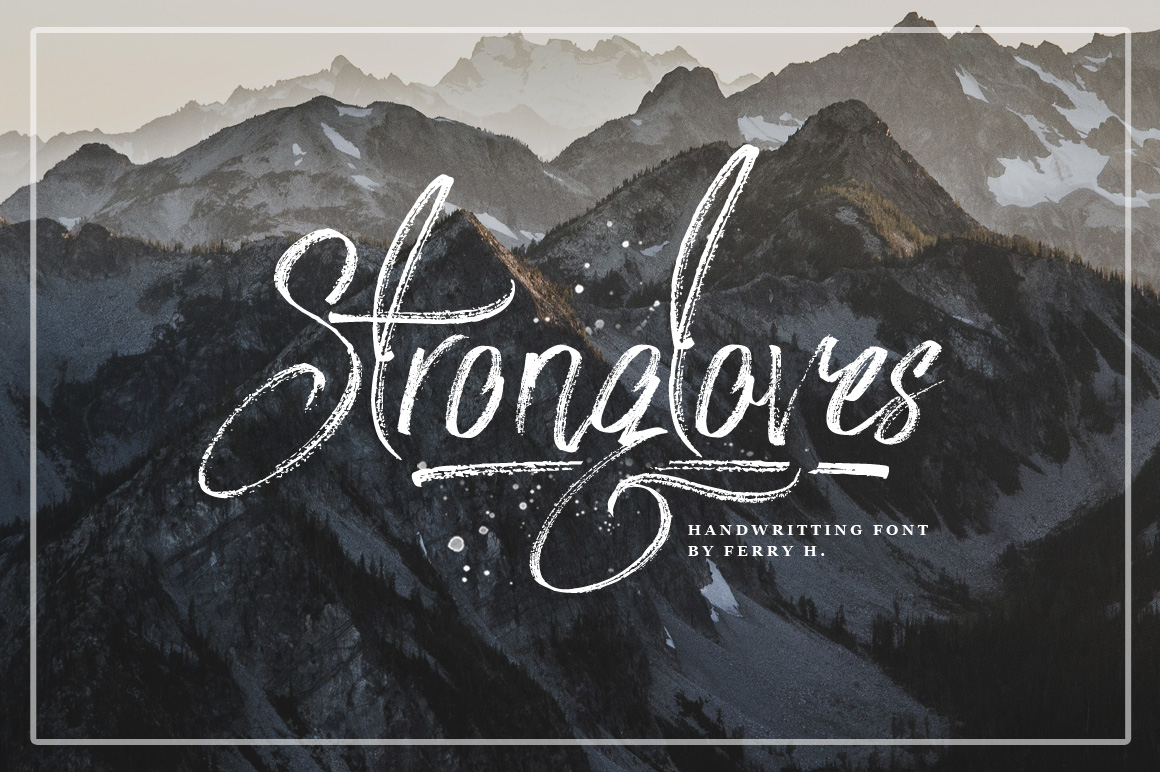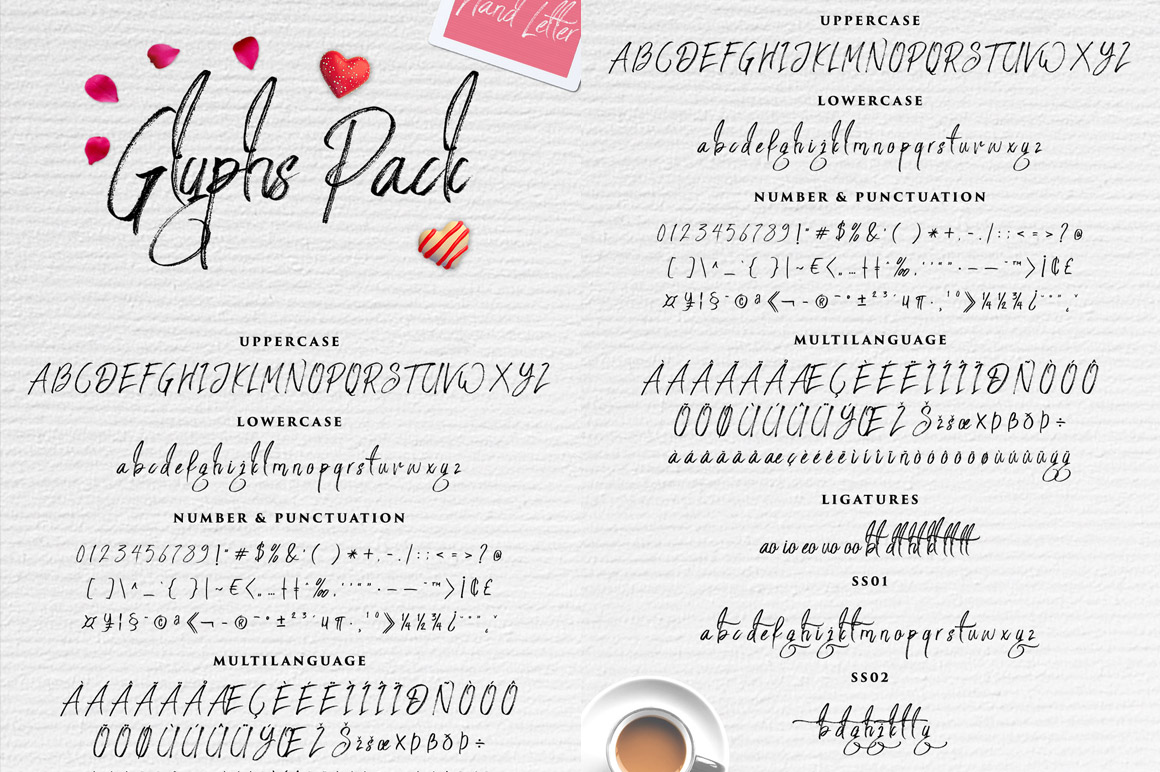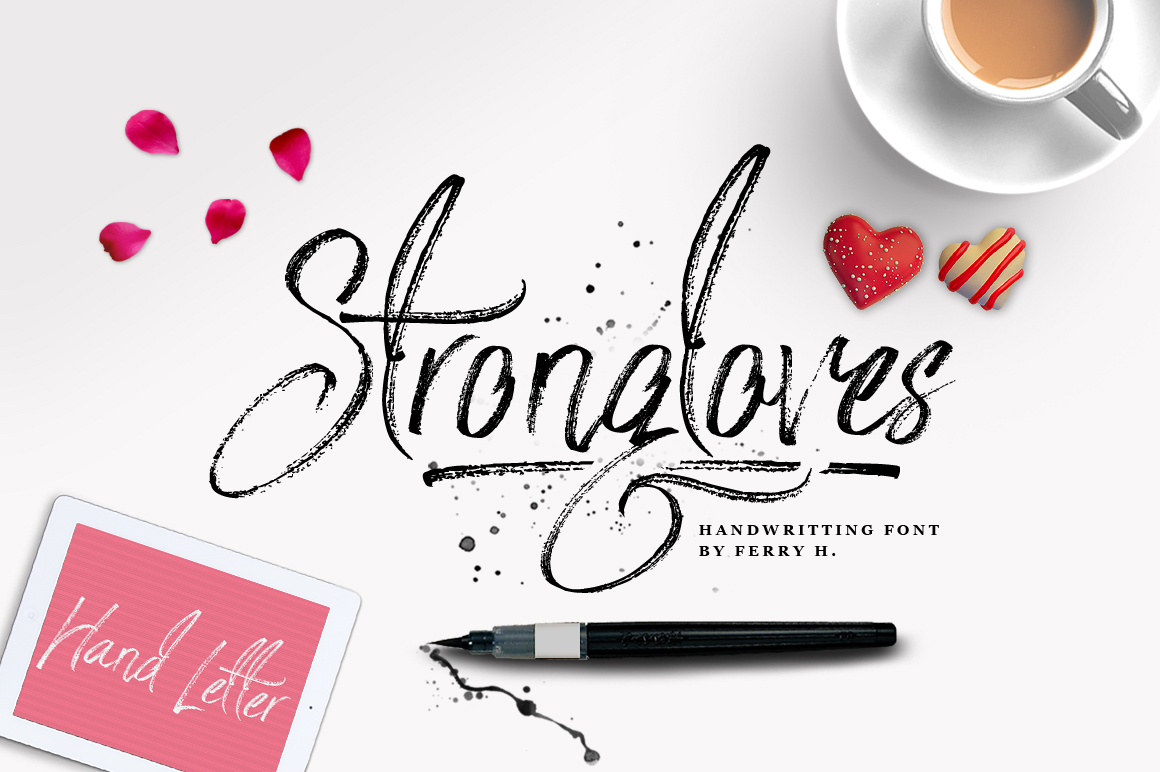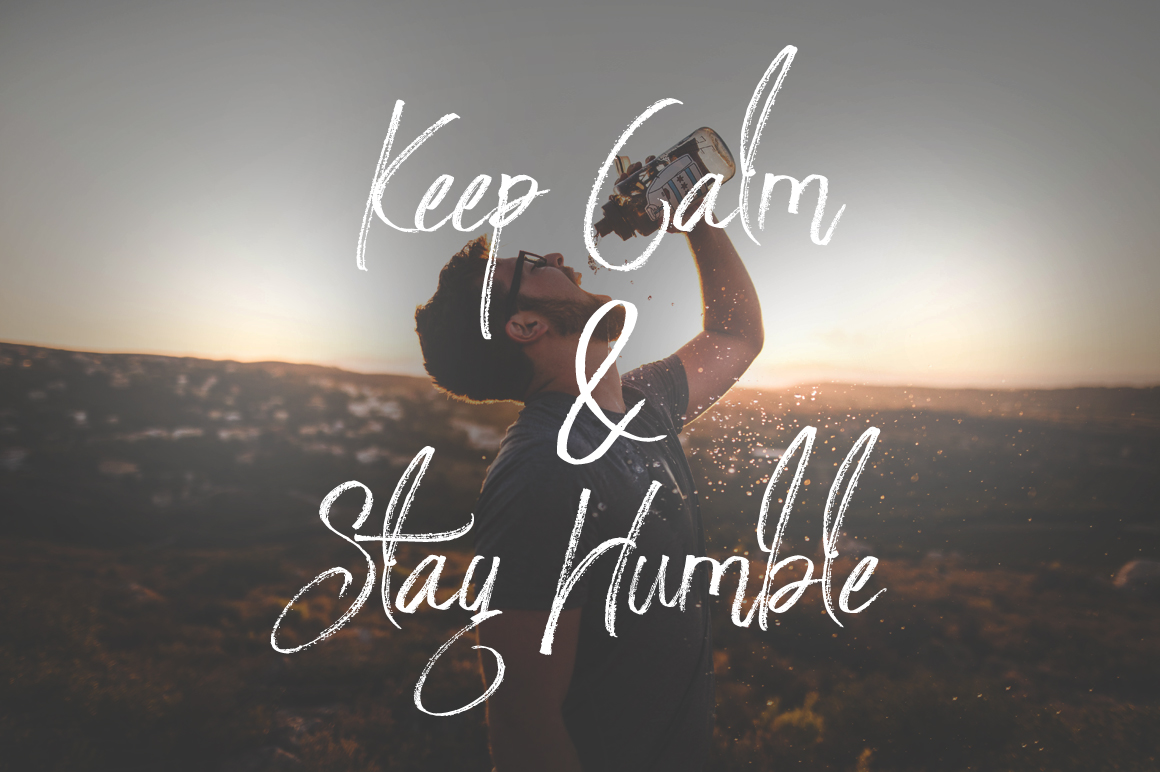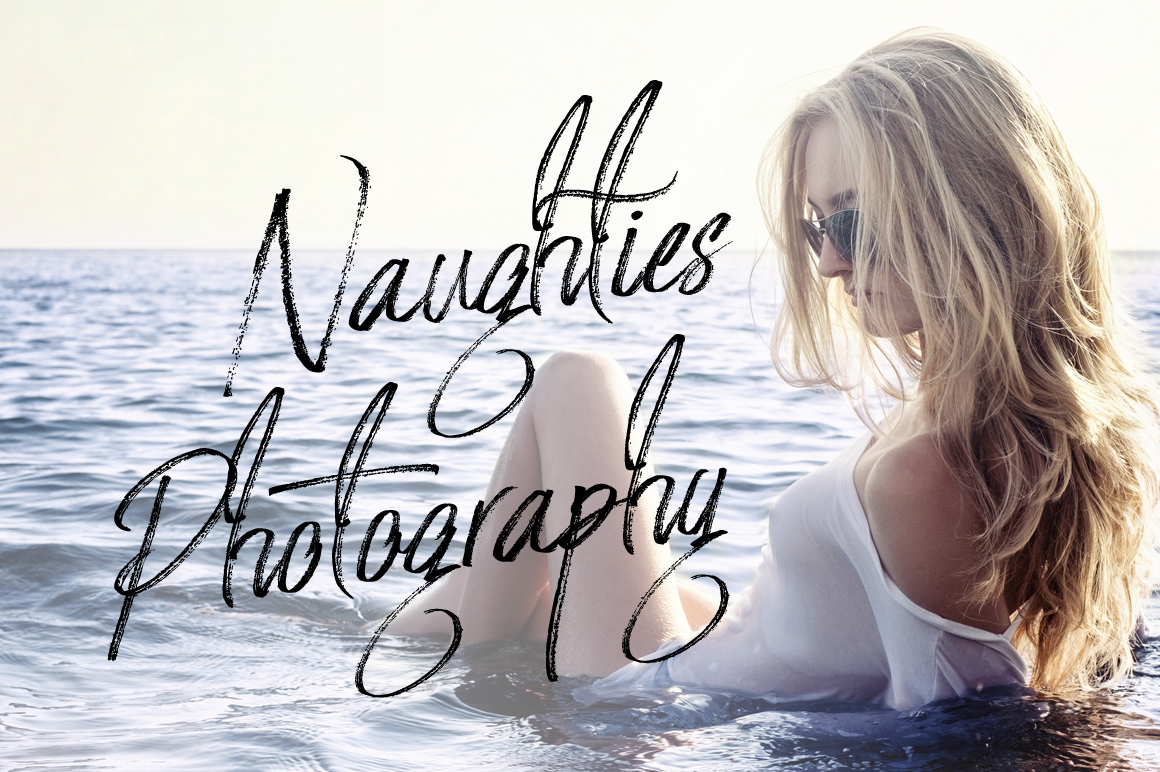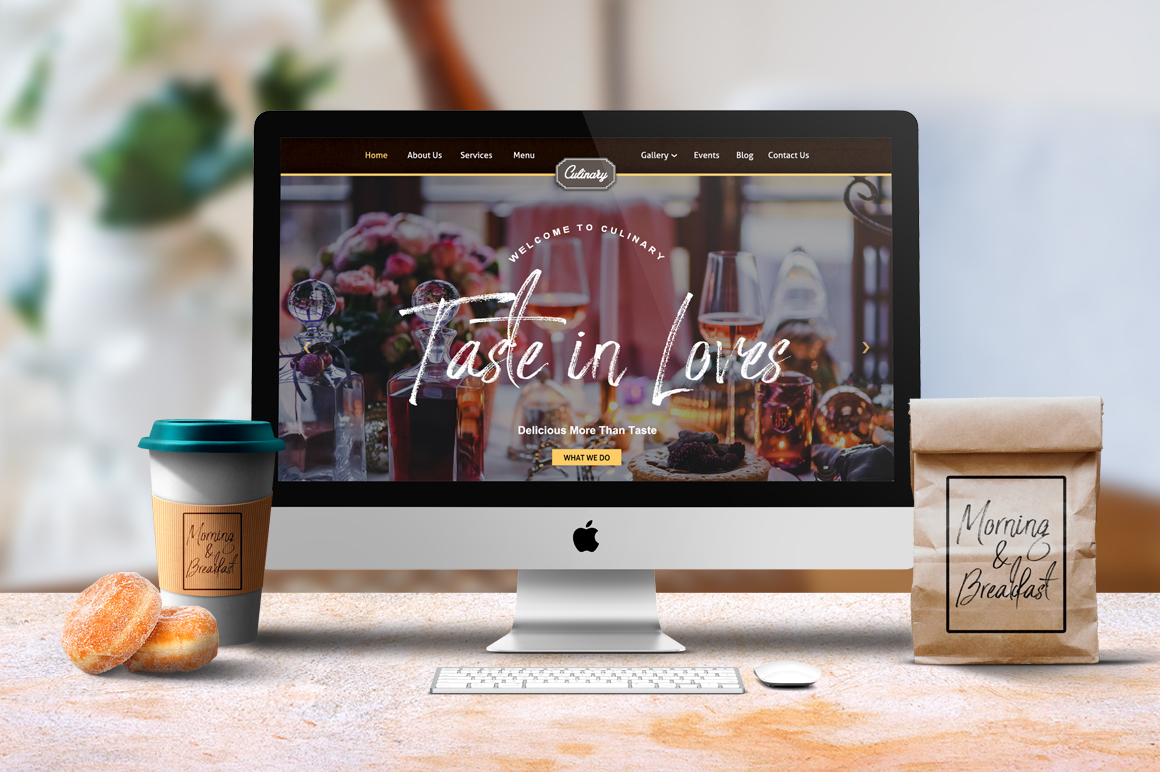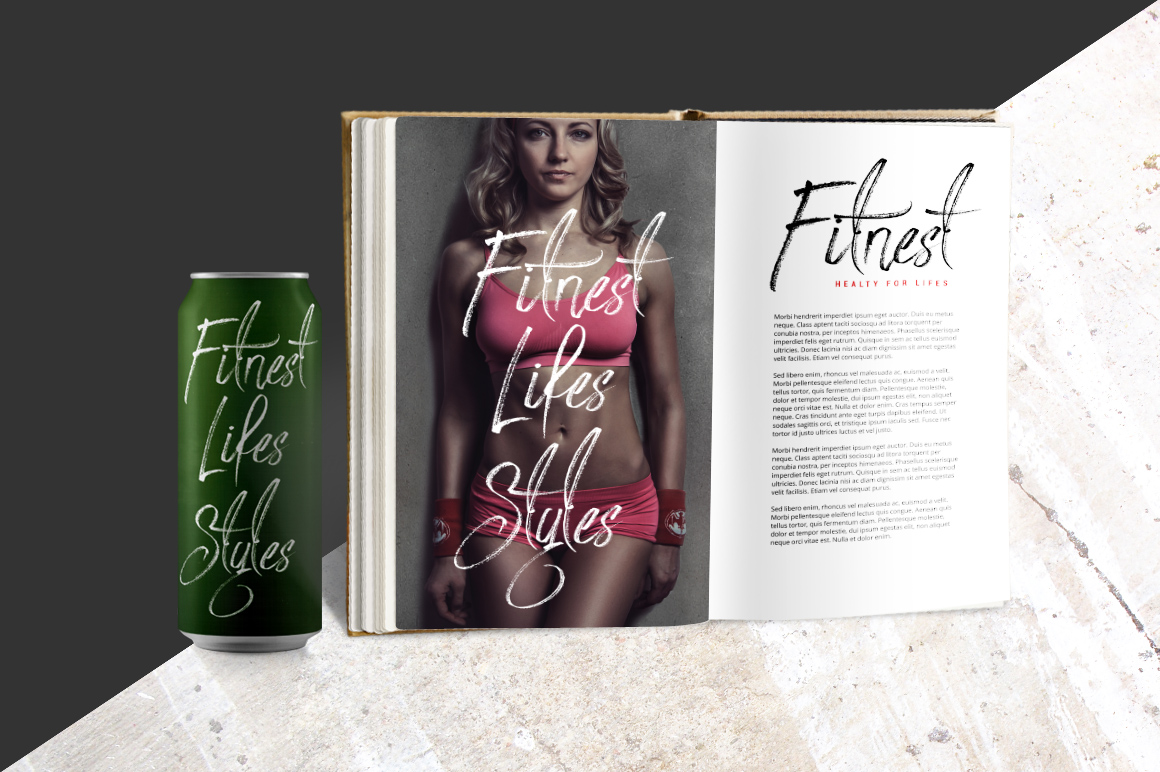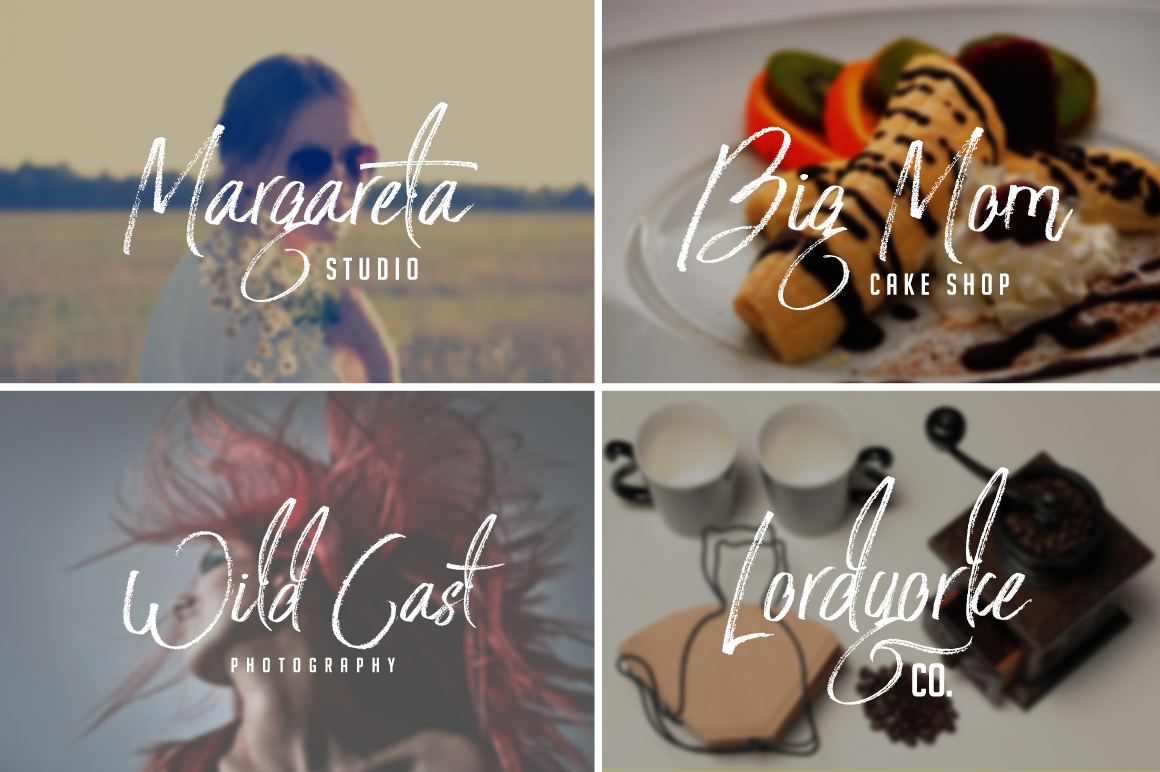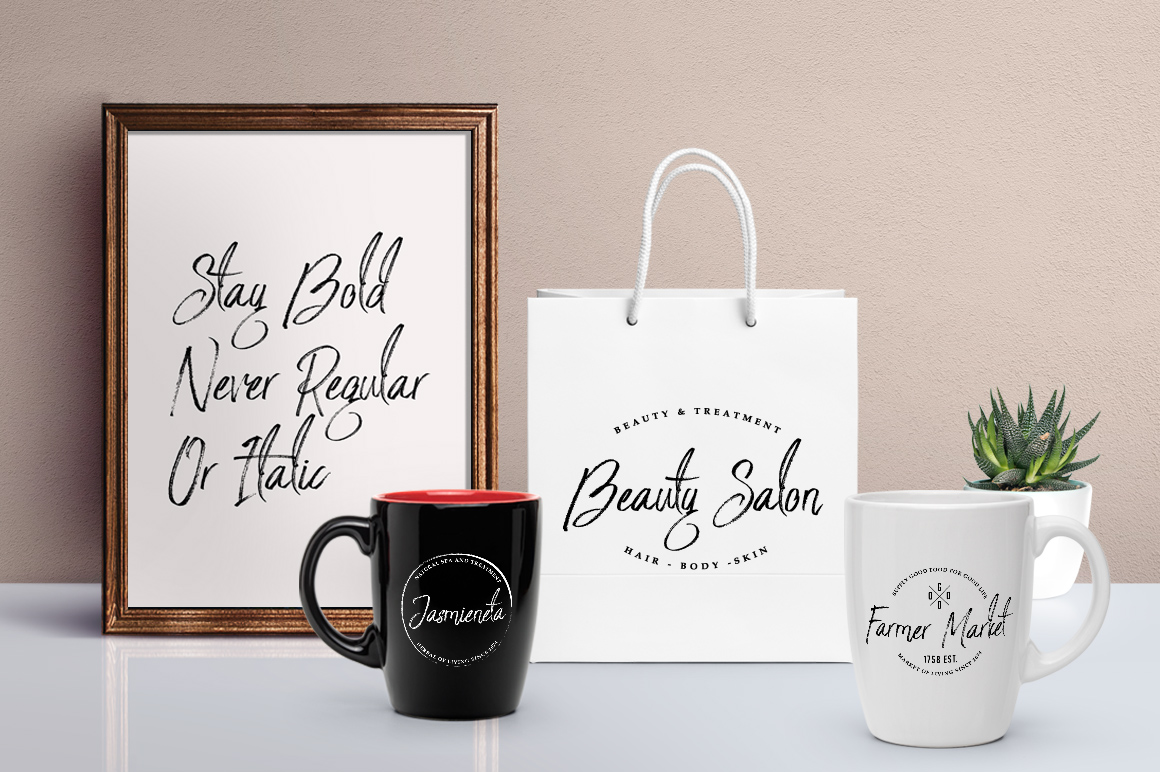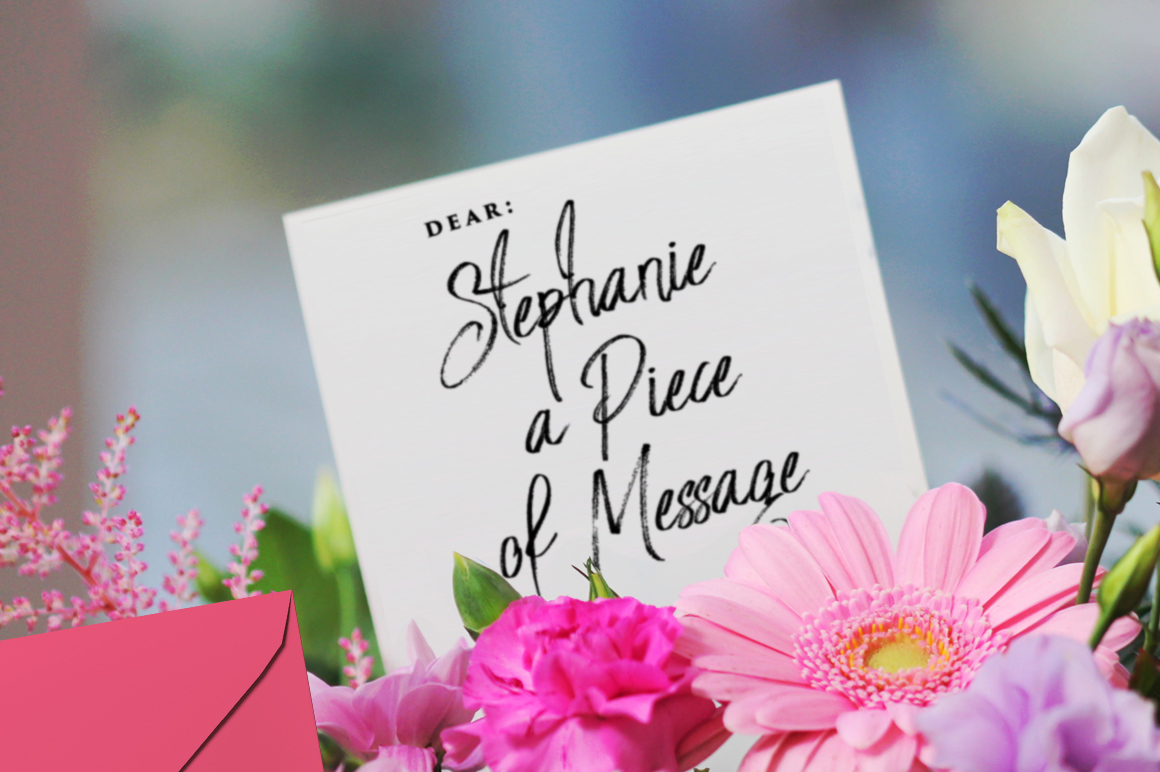
Strongloves – Handwritten Script Font
Strongloves is a Dry Brush Script Font with a hand-letter style. Suitable for design, element design, weddings, events, t-shirts, logos, badges, stickers, awesome work, etc…
Feature of The Font:
– Strongloves OTF and TTF have Uppercase, Lowercase, Number And Punctuation, Multilanguage, Standard Ligatures, SS01, SS02, and PUA Encodes that are easy for Open-Type Use.
– Strongloves Swashes, There are swashes of handwritting dry brush markers to make the type design perfect.
– Unique style fonts